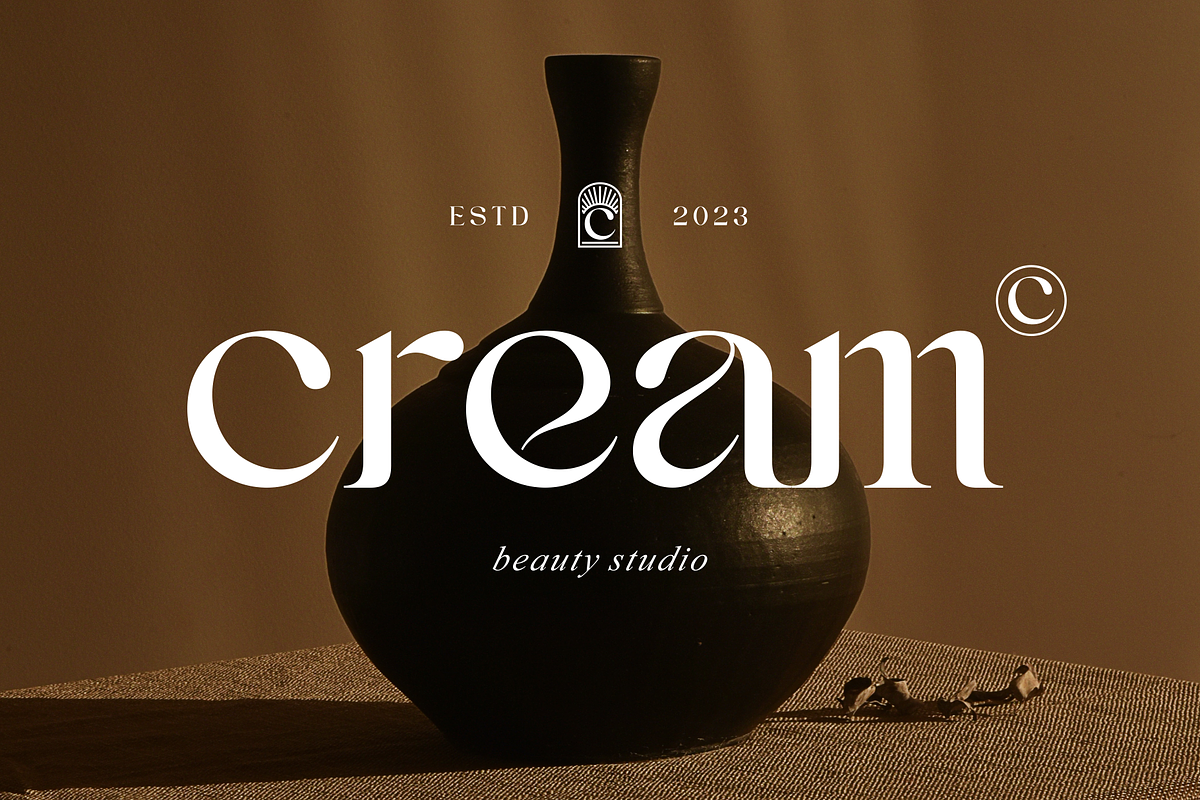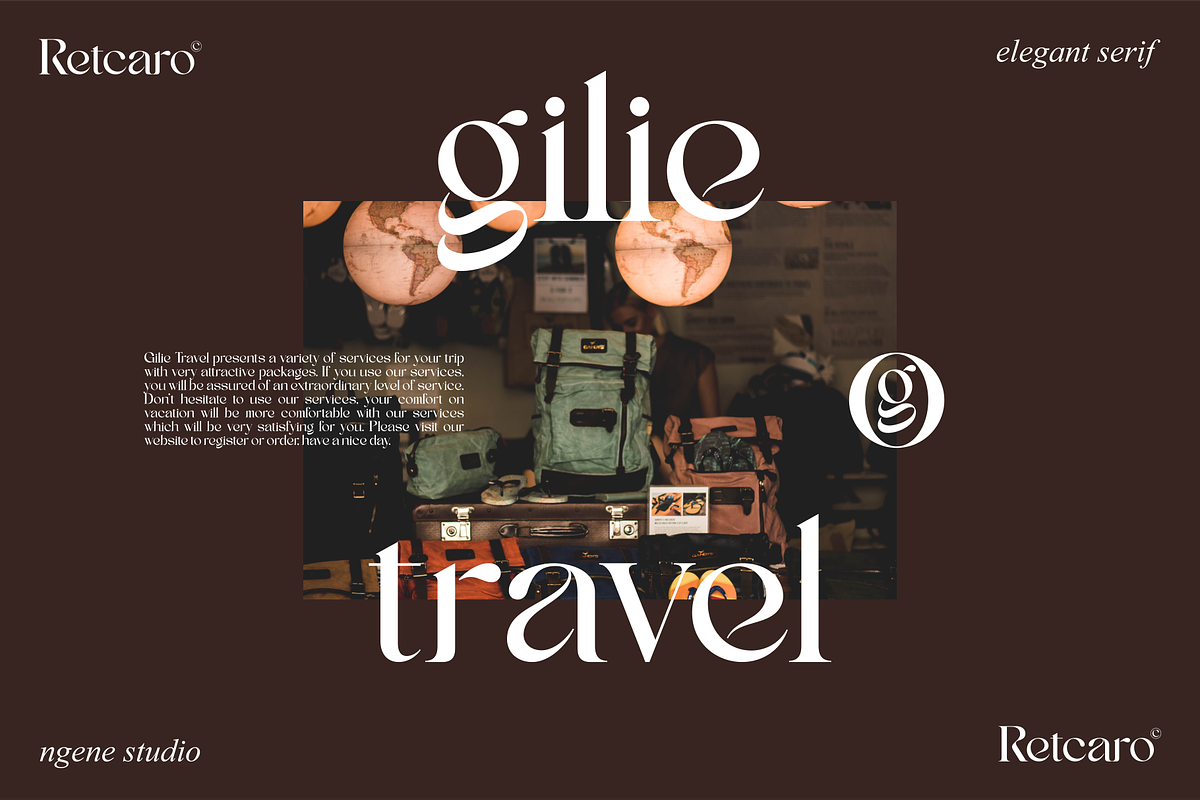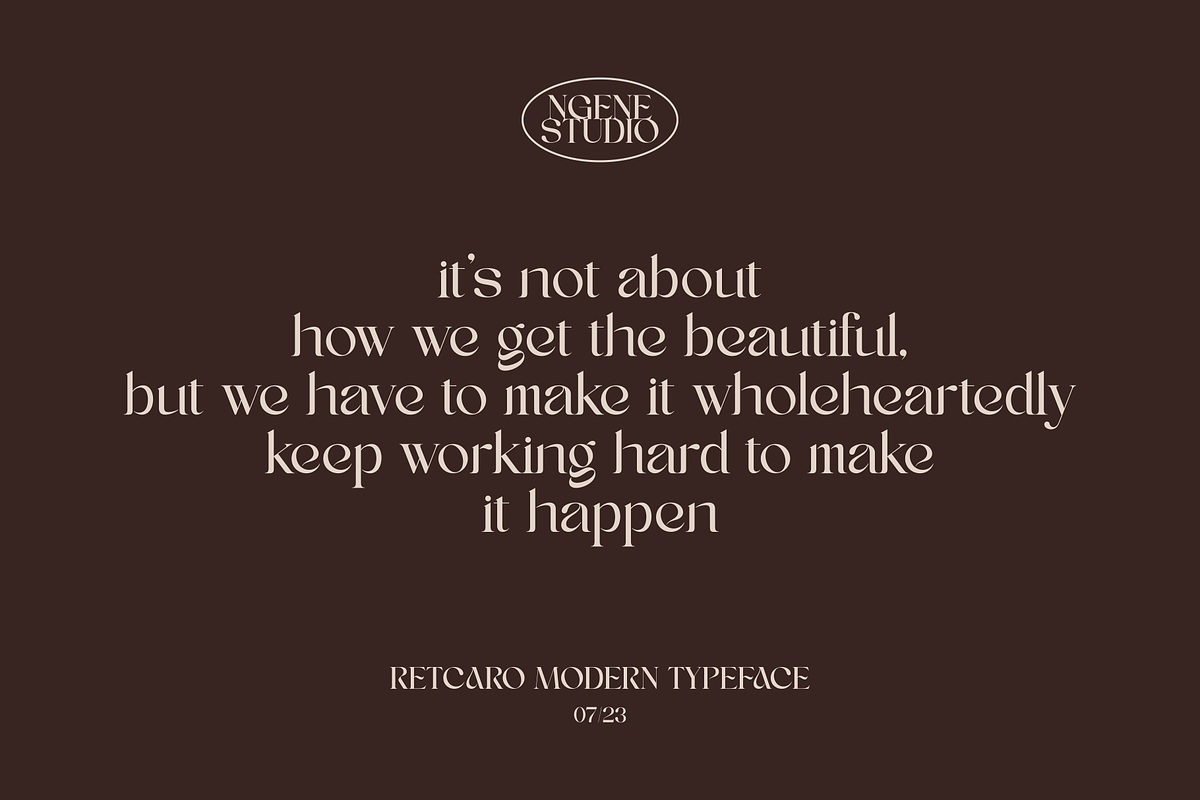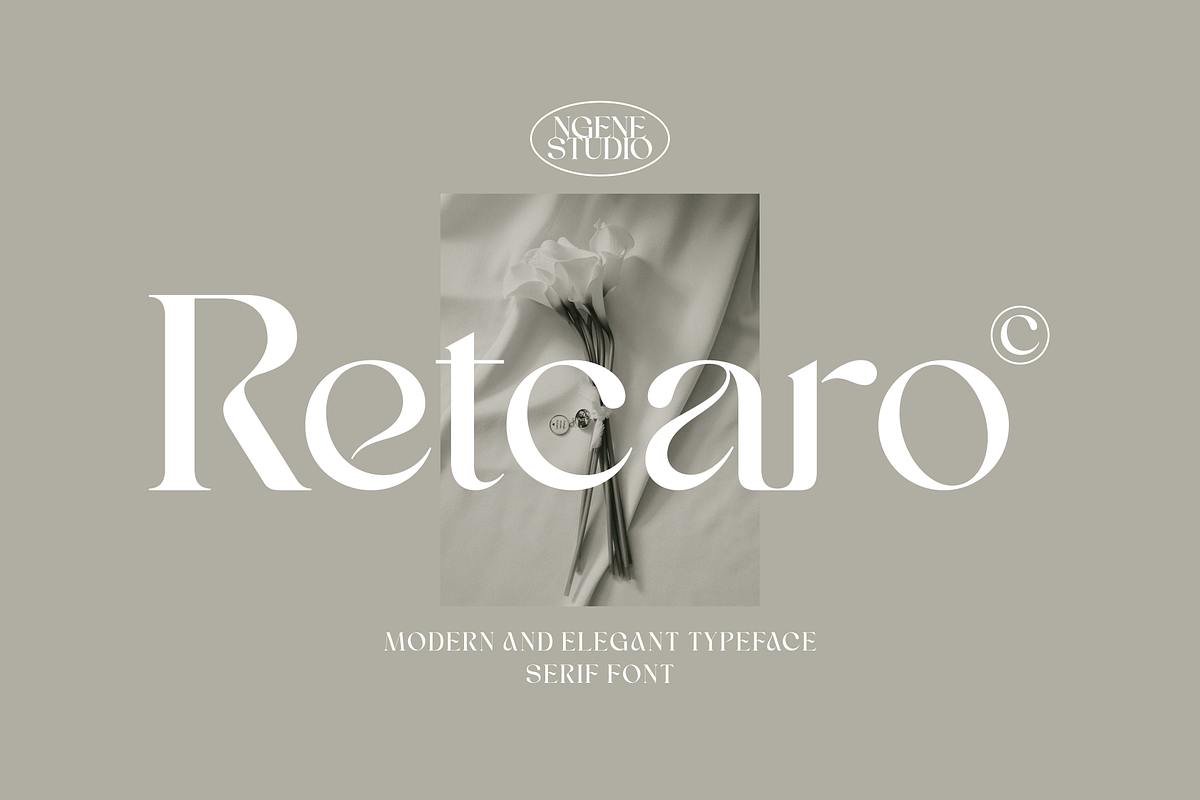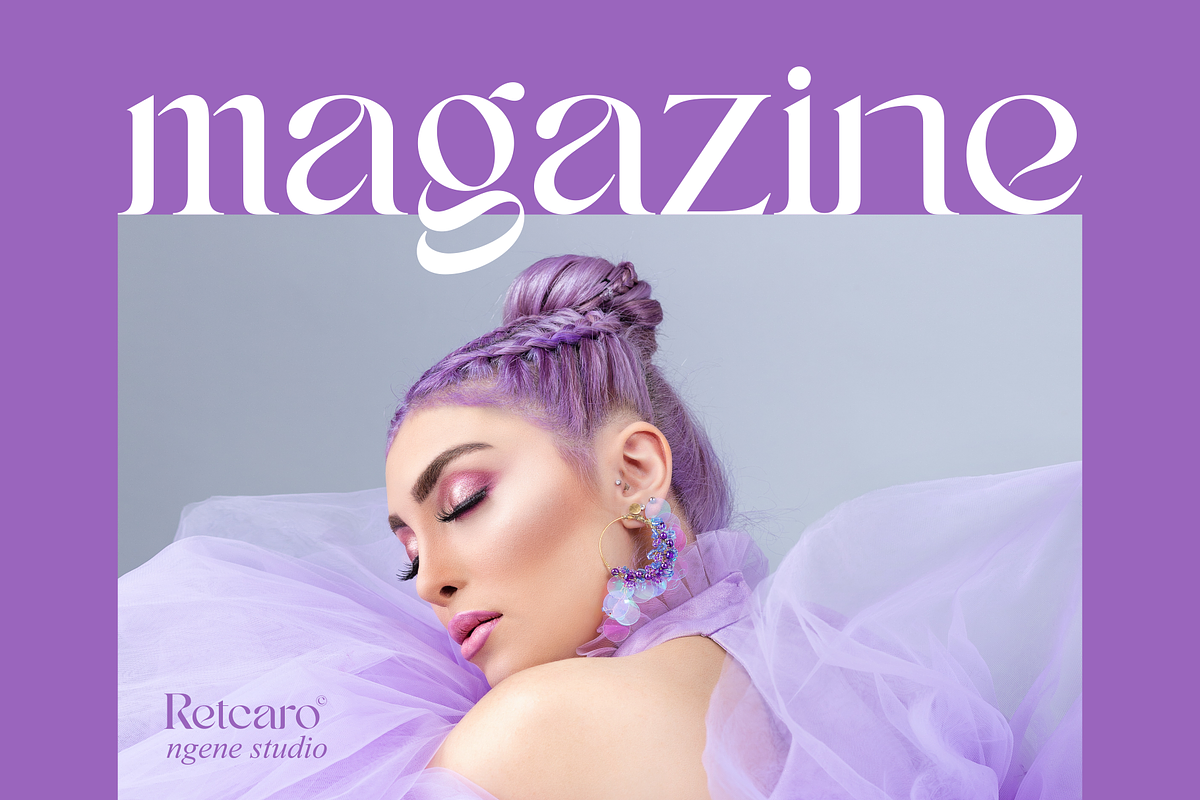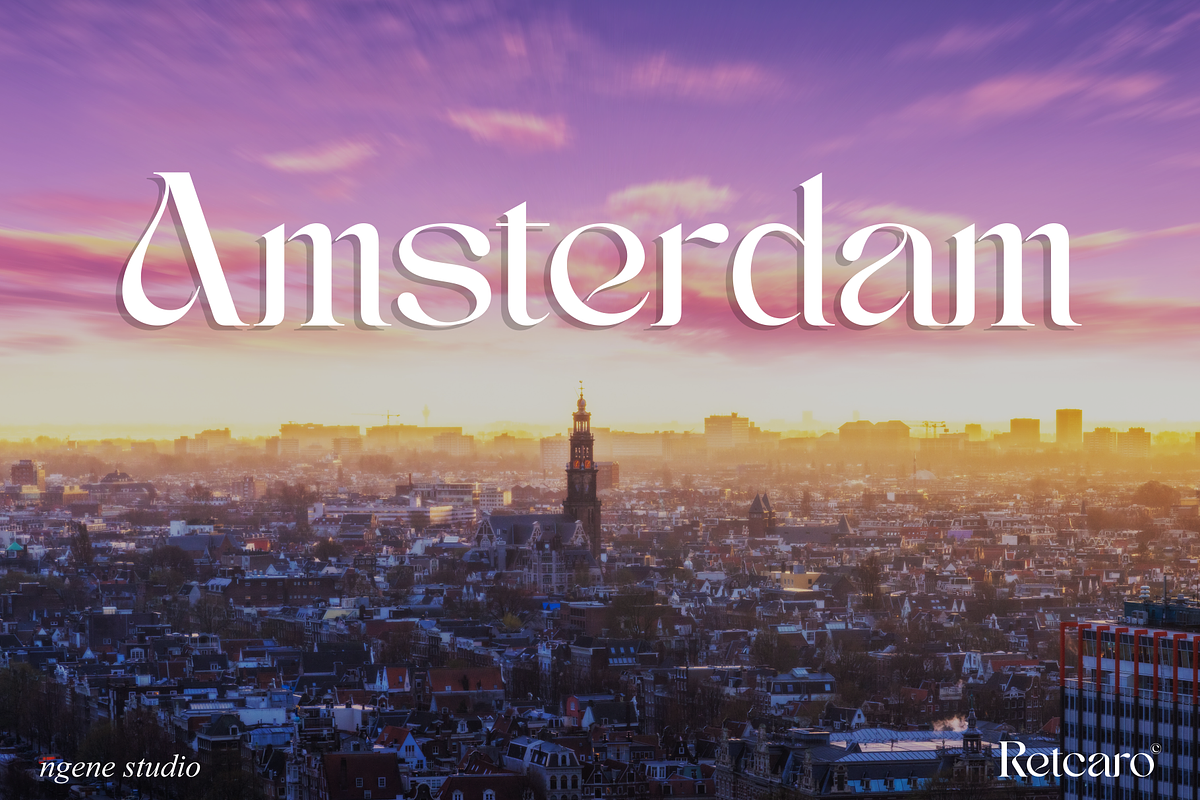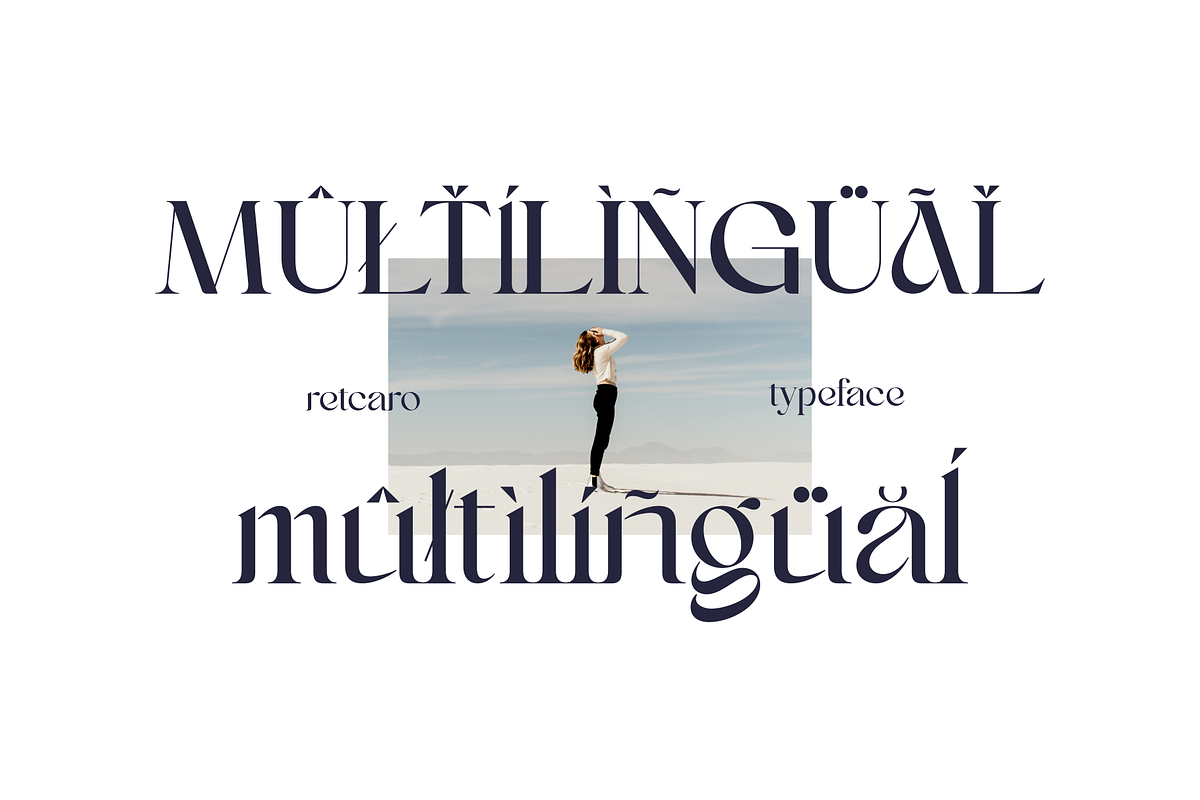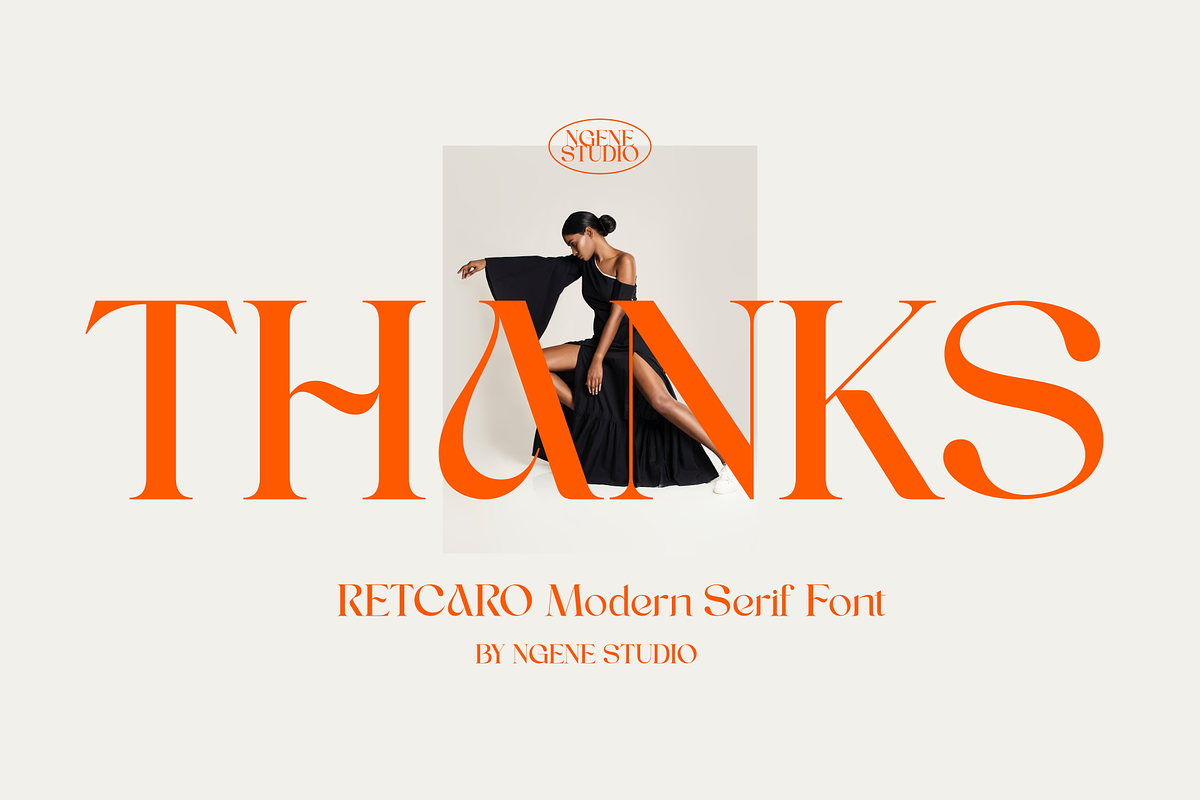
Retcaro Serif
Retcaroserif font with an elegant and modern touch, this font is taken from a variety of characters. This font is perfect for creating logo designs, badges, web fonts, magazines, and more. With a very strong font character that will make your design different and more attractive. This font is also multilingual, making it easier for you to use the language you need.